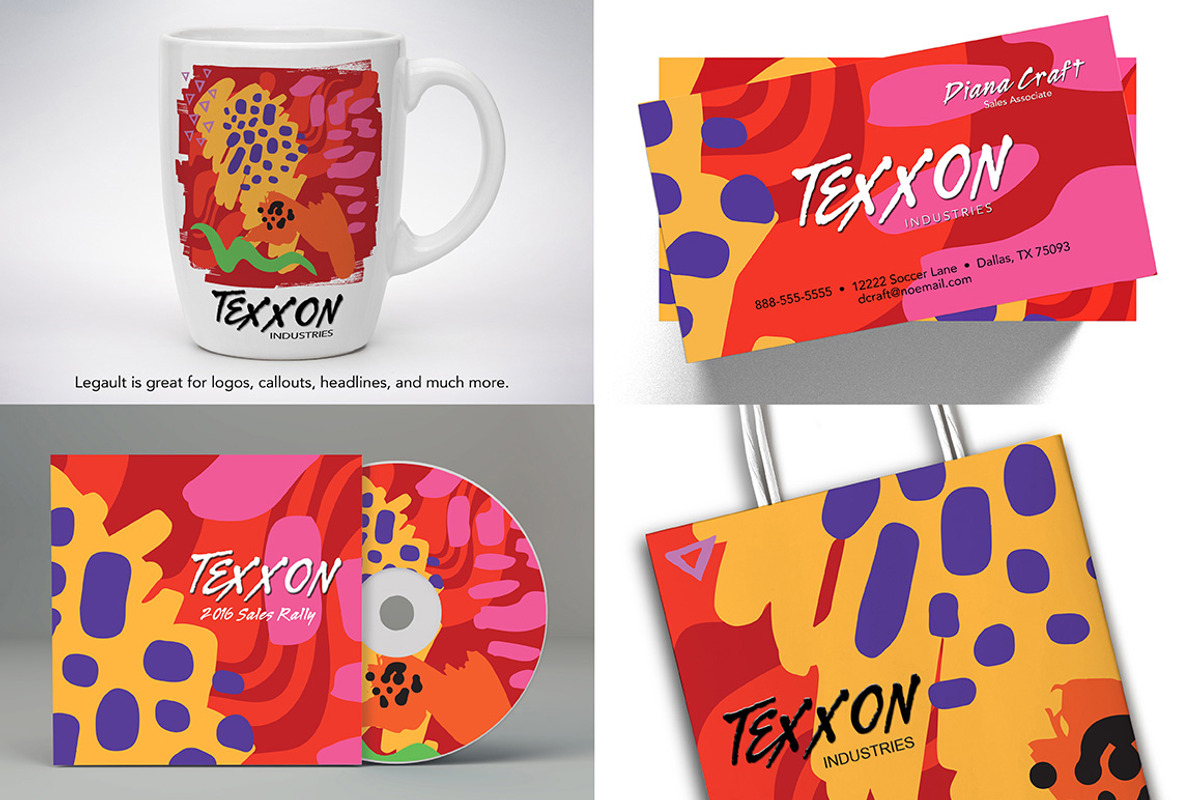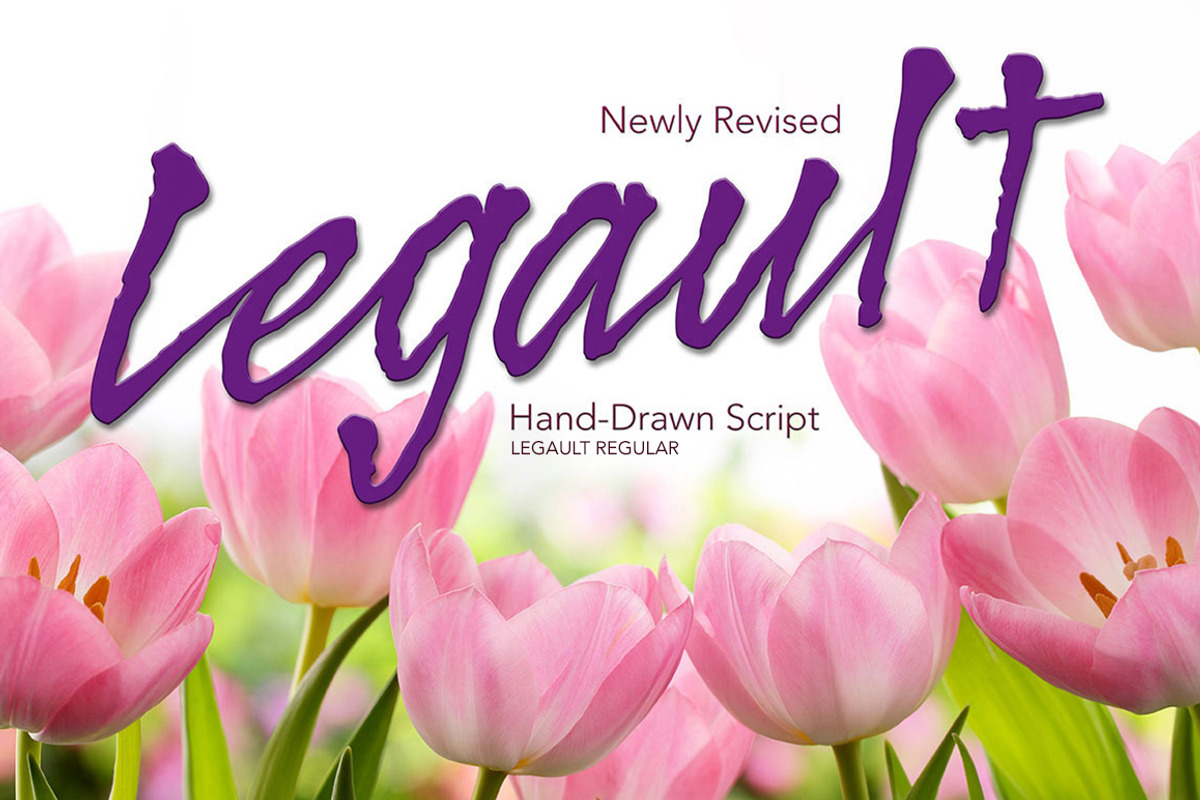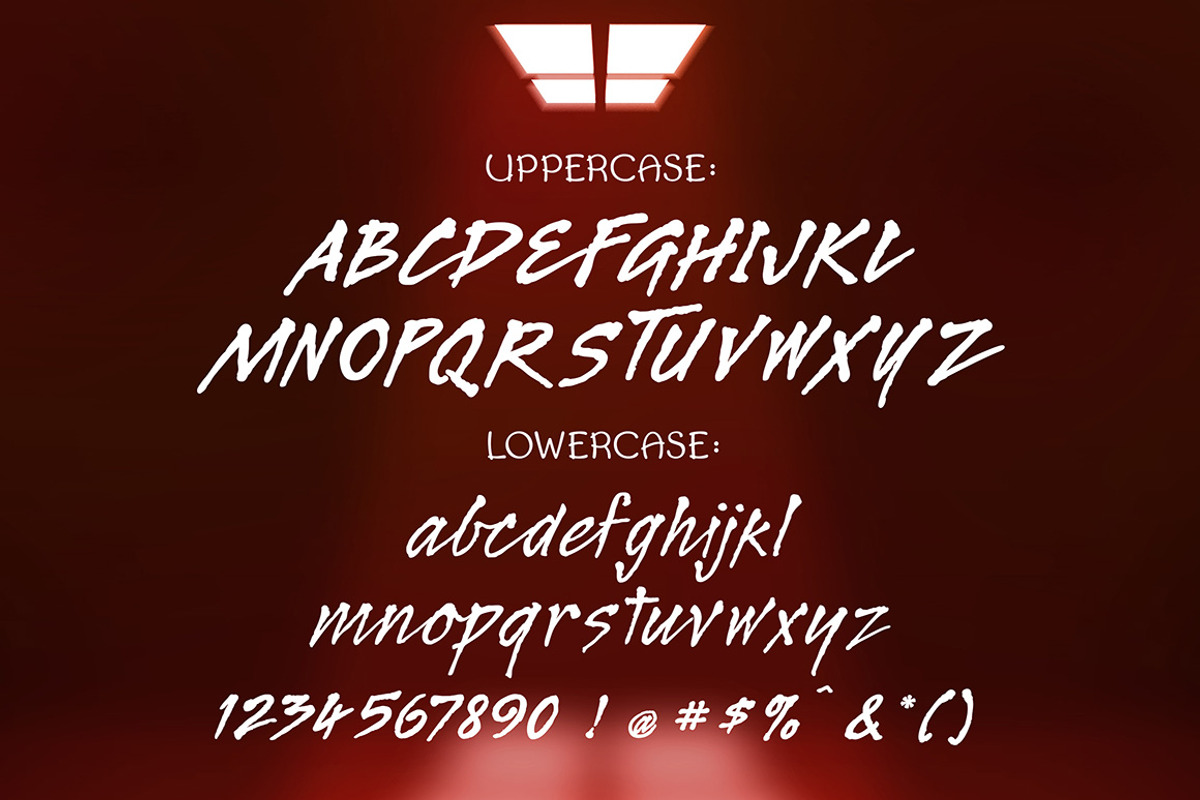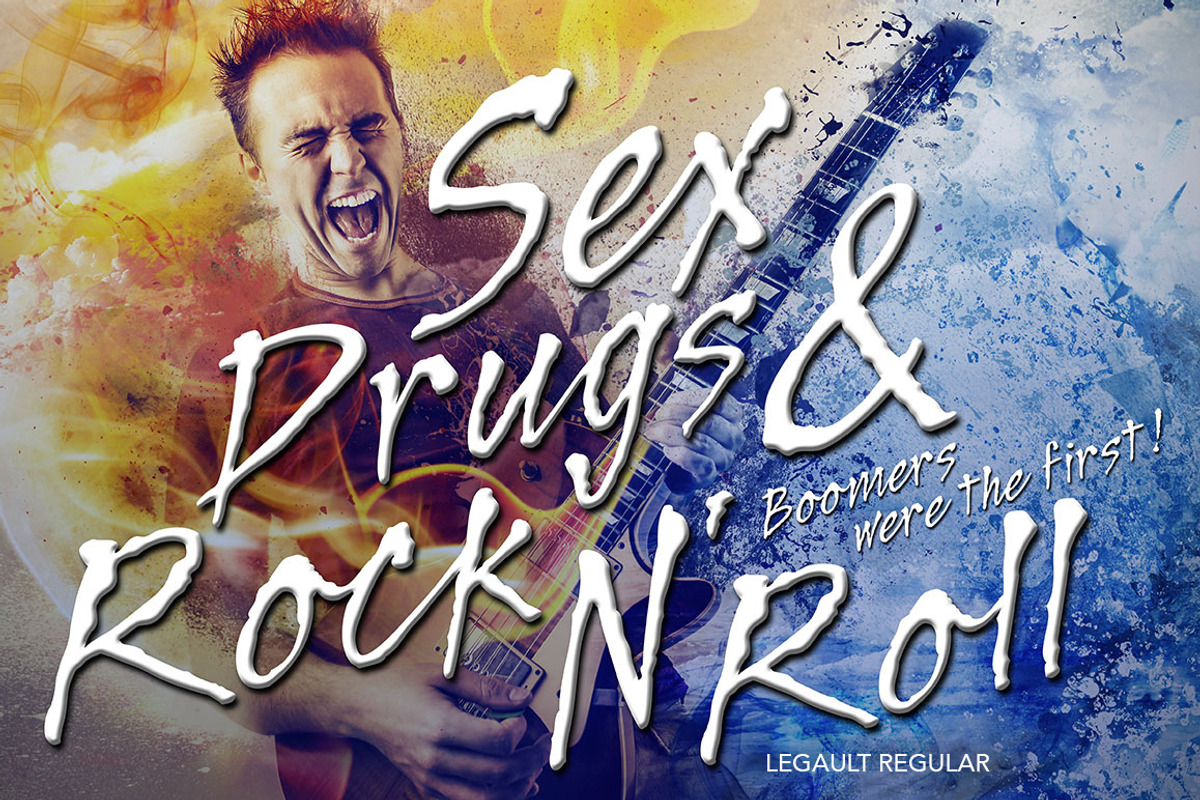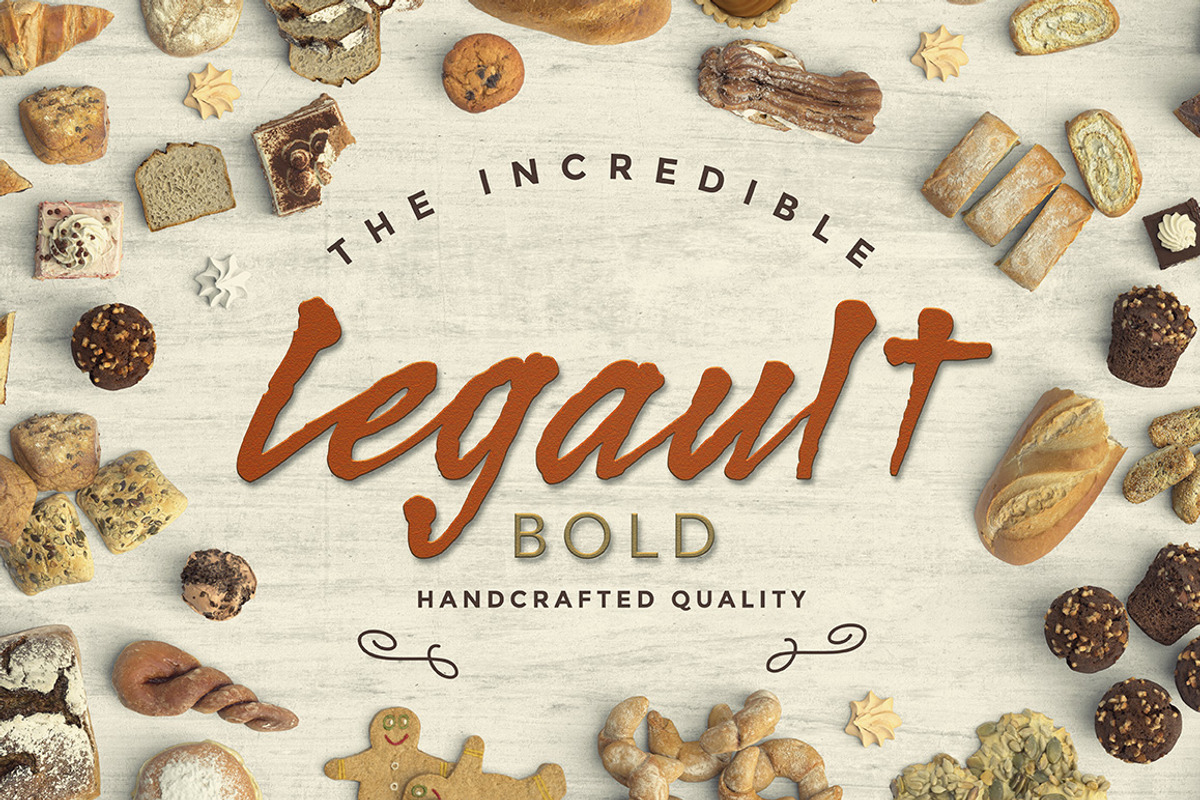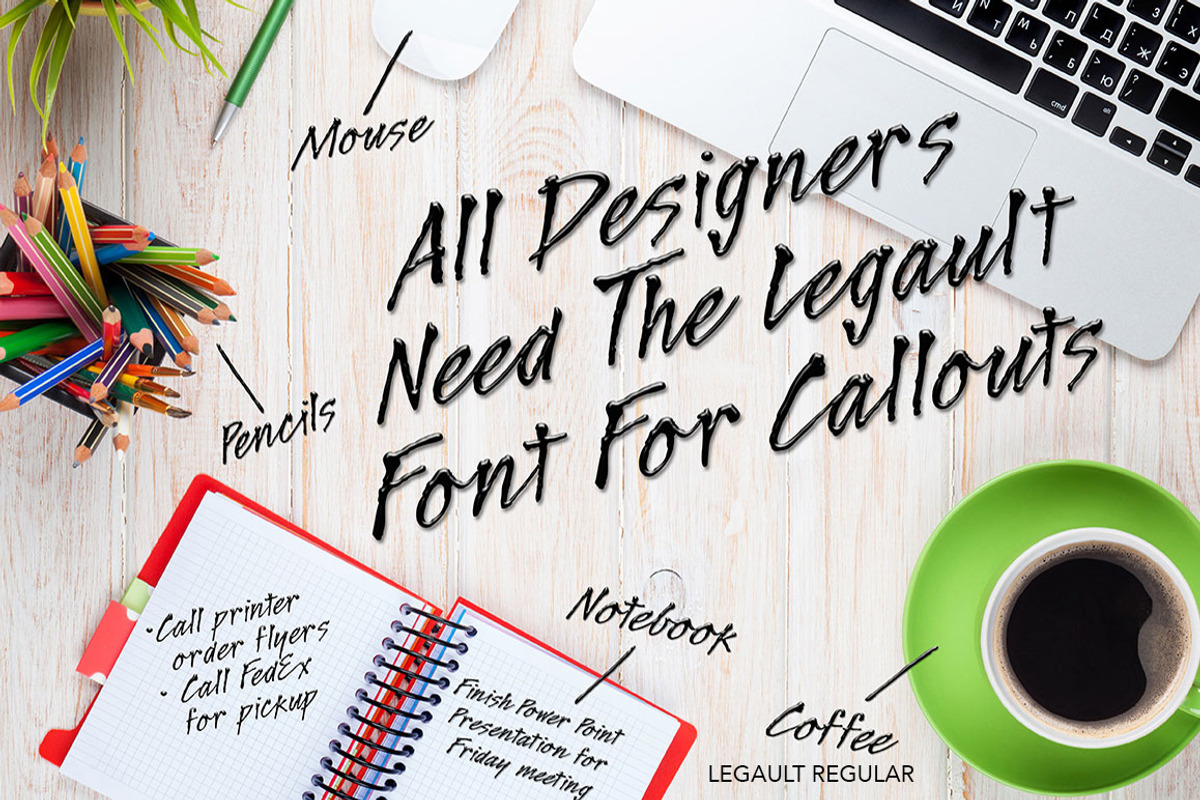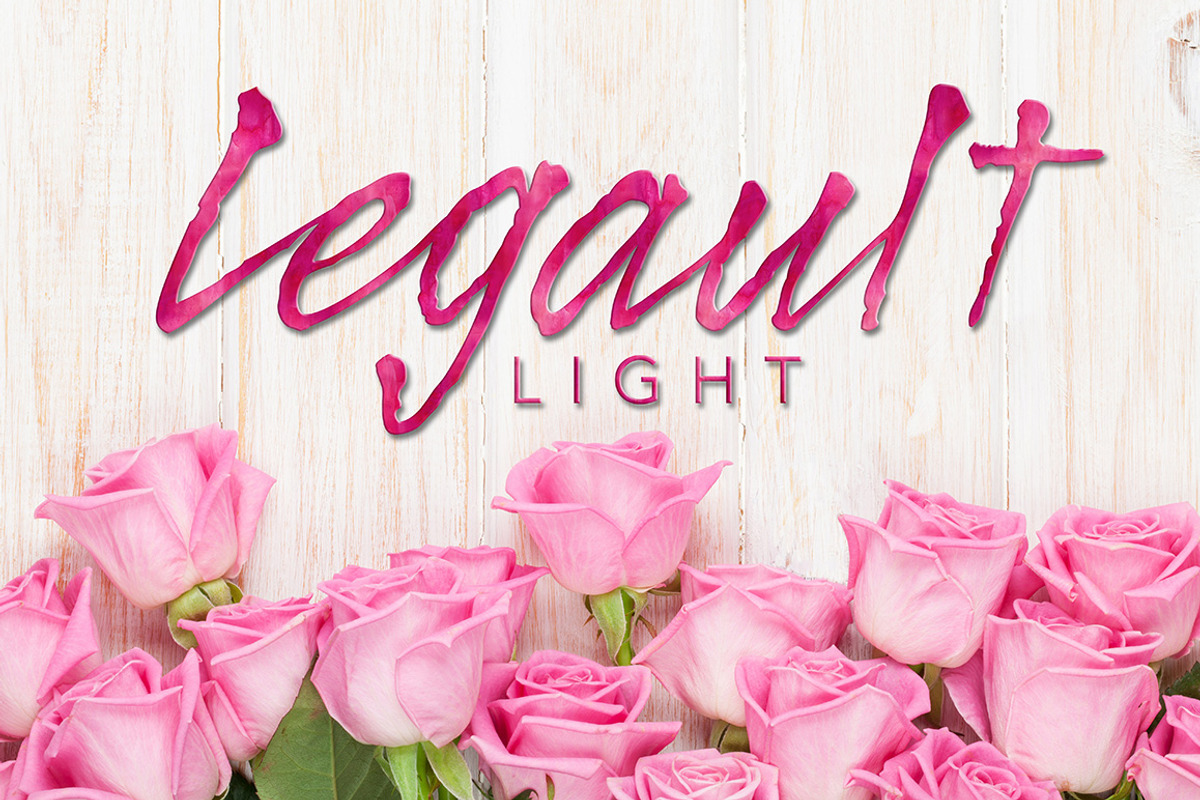
Legault Font Family
Legault Font Family by The Thrill of Design is a font selected for branding, posters, packaging, typography.
- Legault font family includes four different weights (light, regular, bold, and heavy) sold separately and as a group discounted.
- Legault Light
- Legault Regular
- Legault Bold
- Legault Heavy
Why Legault Font Family is worth a look
Legault Font Family by The Thrill of Design fits naturally into Branding, posters, packaging, typography.